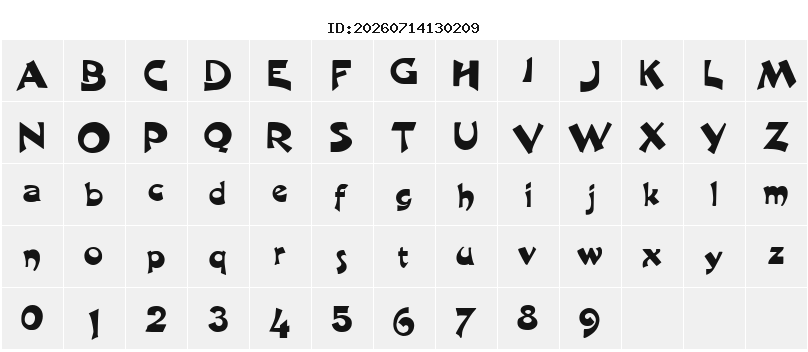
• Font Name: Harquil
• Font ID: Altsys Fontographer 3.5 Harquil Regular
• Full Font Name: Harquil Regular
• Version: Altsys Fontographer 3.5 3/10/92
• PostScript Name: Harquil Regular
• Character Count: 76
About Harquil.ttf
Harquil.ttf is a modern, elegant sans-serif font designed for ultimate readability and visual harmony. Perfect for branding, headlines, web design, and print materials.